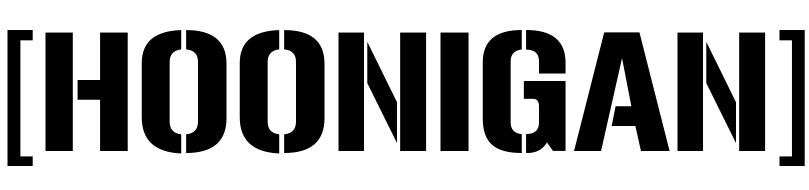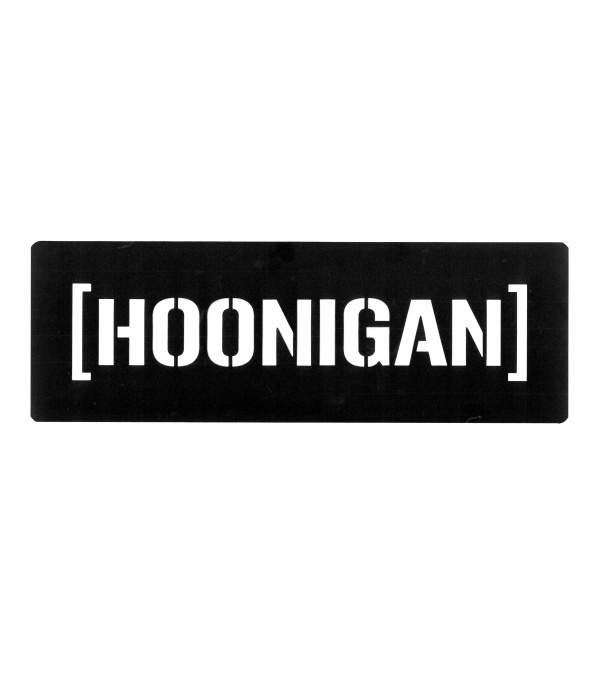
Hoonigan Logo Font
Fonts in UseThe Hoonigan Racing Division backed by Monster Energy, is a dynamic motorsport team that competes in prestigious events like the World Rally Championship, Global RallyCross Championship, FIA World Rallycross Championship, and Rally America, captivating audiences worldwide with their exhilarating performances.
The Hoonigan logo font resembles Gunplay Regular with adjustments to the letter "N" and square brackets. Finding an accurate logo online is difficult due to incorrect renditions of the "N" letter. Gunplay, inspired by The Getaway film, is a stencil font with four styles (Regular, 3D, Damage, Spraypaint), and you can download the regular and 3D versions for free from the Fonts Used section.